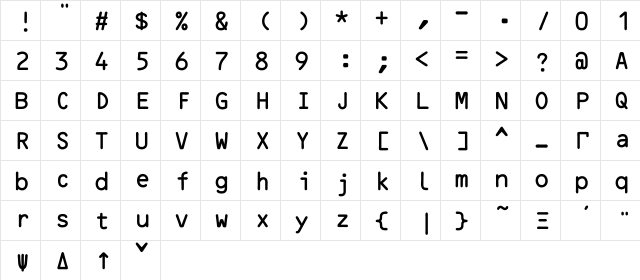
ocrb10 Regular
ocrb10 takes a measured approach to typography — its balanced proportions and neutral character make it a reliable workhorse for both digital and print work.